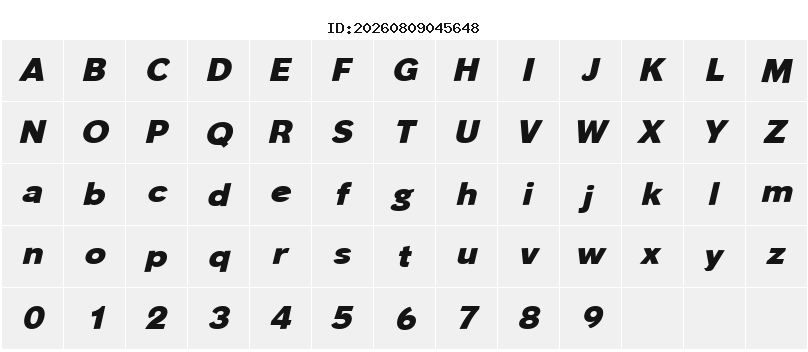
Phinster Heavy Preview
• Font Name: Phinster Heavy
• Font ID: Altsys Fontographer 3.5 Phinster Heavy Italic
• Full Font Name: Phinster Heavy Italic
• Version: Media Graphics International: Publisher's Paradise (TM) October 1994
• PostScript Name: PhinsterHeavyItalic
About Phinster Heavy.ttf
Phinster Heavy.ttf is a modern, elegant sans-serif font designed for ultimate readability and visual harmony. Perfect for branding, headlines, web design, and print materials.